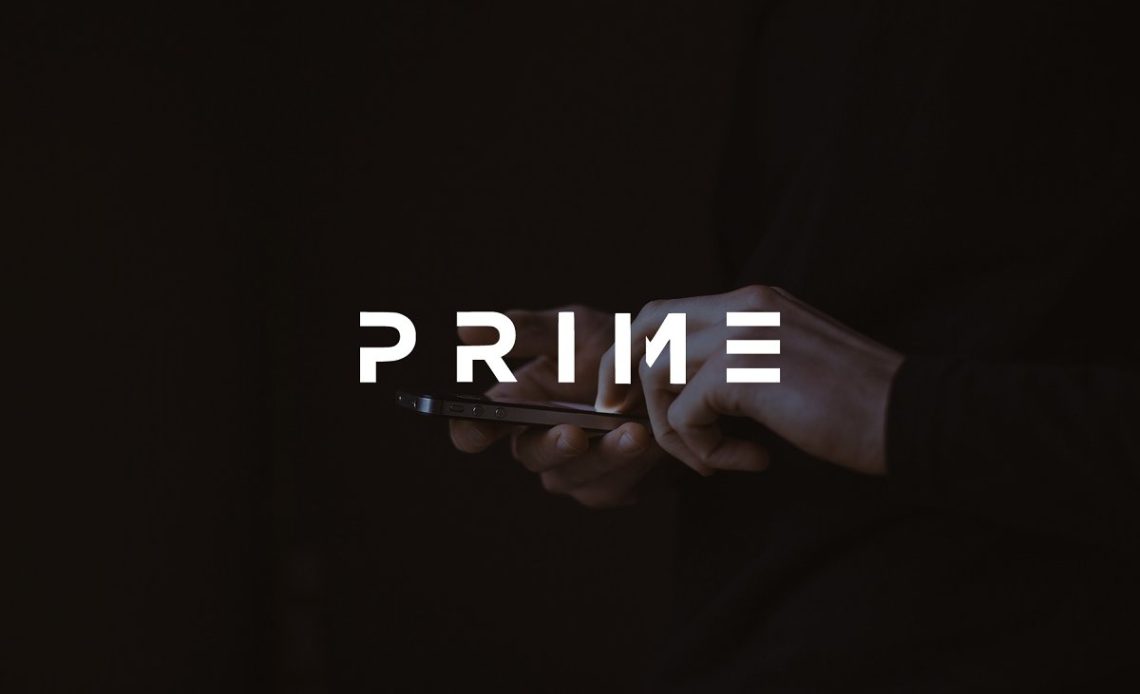
Introducing Prime - the ultimate modern bold Sans Serif Font that will take your designs to new heights! Created by the talented Bramaji Dipa Manggala, this font is a game-changer in the world of typography. With its sleek and stylish design, Prime is the perfect choice for those looking to make a lasting impression.
Prime is not just your ordinary font - it's a work of art. Its sans serif nature gives it a contemporary and sophisticated look, making it ideal for a wide range of design projects. Whether you're creating stunning logos, eye-catching advertisements, or sleek website headers, Prime will undoubtedly elevate your visual content.
One of the most striking features of Prime is its futuristic edge. The font's geometric corners give it a unique and edgy vibe, making it a perfect fit for technology-themed designs. If you want to convey a sense of innovation, progress, and cutting-edge ideas, Prime is your go-to font.
But that's not all - Prime has recently been updated to include numbers and punctuations, making it even more versatile and user-friendly. Now, you can effortlessly create stunning typography for your website, social media posts, or even print materials. The possibilities are endless!
What sets Prime apart from other fonts on the market is its ability to evoke emotions and capture attention. Its bold and captivating presence instantly draws the viewer in, leaving a lasting impression. With Prime, your designs will stand out from the crowd and make a statement.
Imagine the impact Prime could have on your brand. Picture your customers scrolling through your website and being captivated by the modern and stylish typography. It's not just about aesthetics - it's about creating a memorable experience for your audience. Prime can help you achieve just that.